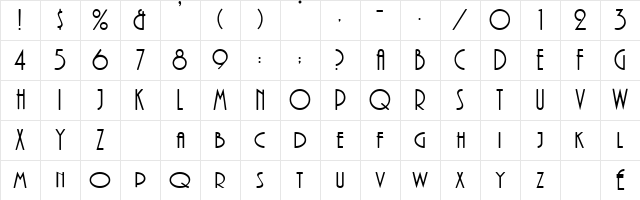
Sanguine Normal
Design Context for Sanguine
Sanguine is a composed and adaptable typeface that performs quietly and consistently across a wide range of design contexts.